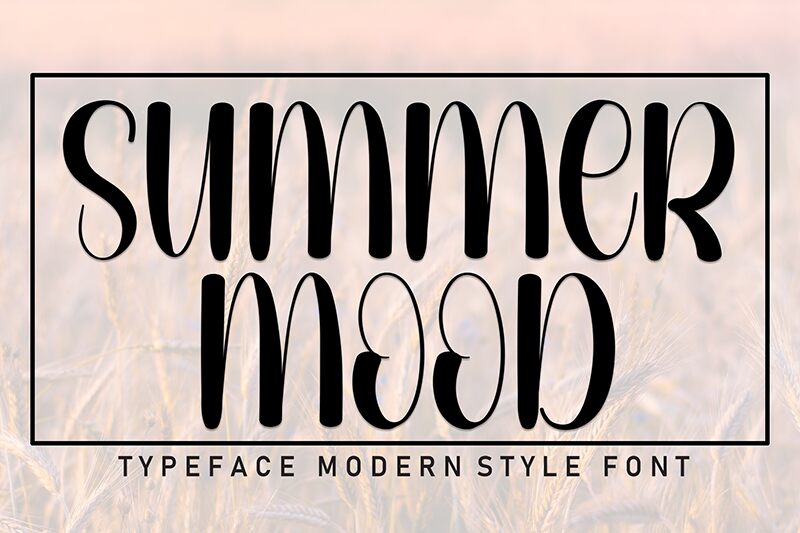
Summer Mood
Summer Mood font by Andi Moz is a condensed brush typeface that captures a warm and inviting mood with a creative flair. Bold and retro-inspired, this font is designed to leave a lasting impression, infusing any text with personality and vigor.
Use Summer Mood in branding projects, posters, invitations, labels, packaging design, banners, social media graphics, artistic projects, event flyers or other prints. More typically suitable uses also include headers in magazines or newspapers as well as logo design of products & companies.